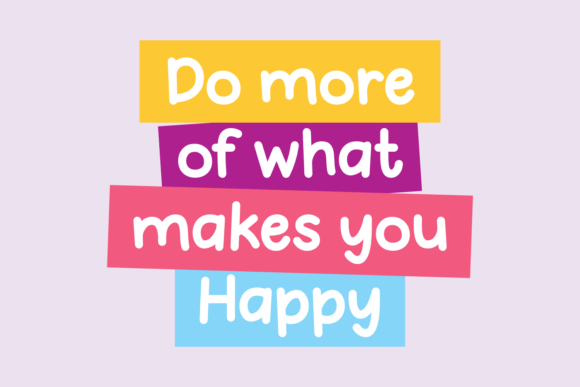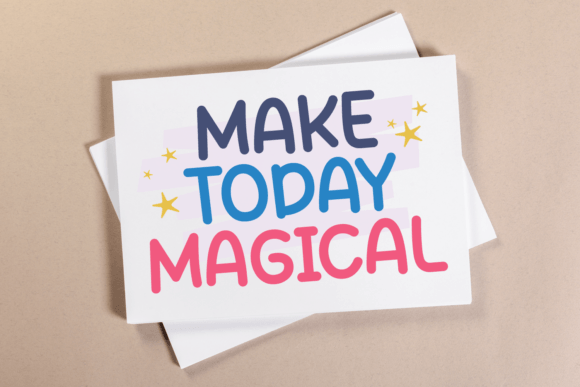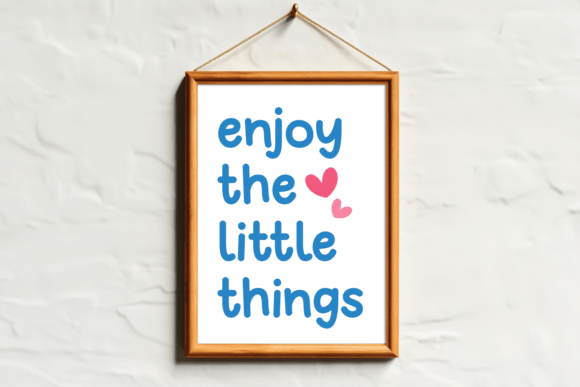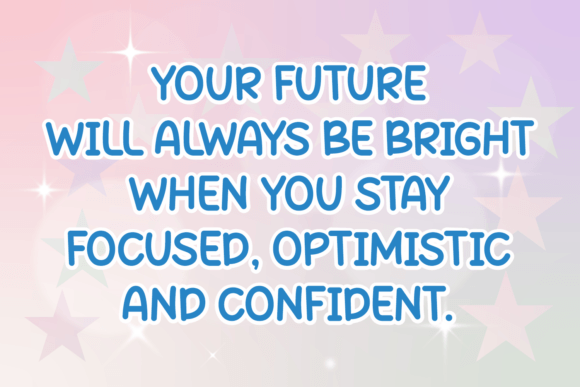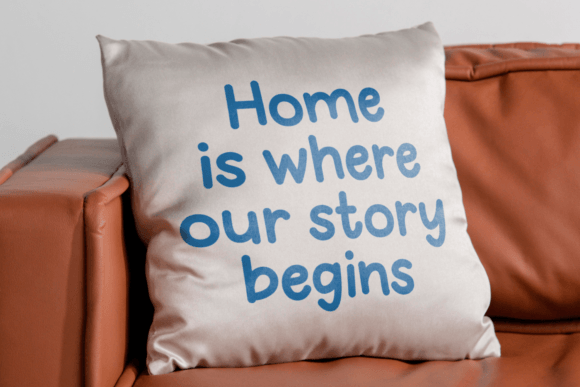
Introduction to Make Happy Font
Make Happy is a delightful handwritten font designed to captivate and charm.
Its playful airiness is reminiscent of childlike joy, making it an ideal choice for lively educational resources aimed at both teachers and students Yet, its versatility extends beyond the classroom, instilling a spark of fun into greeting cards, invitations, and a bounty of artistic ventures.